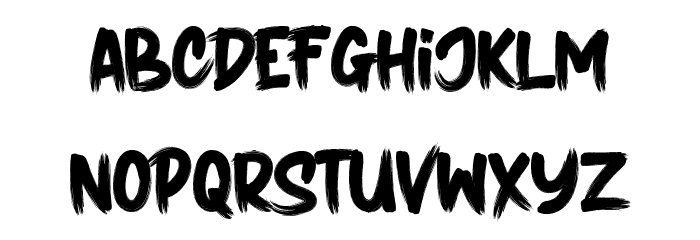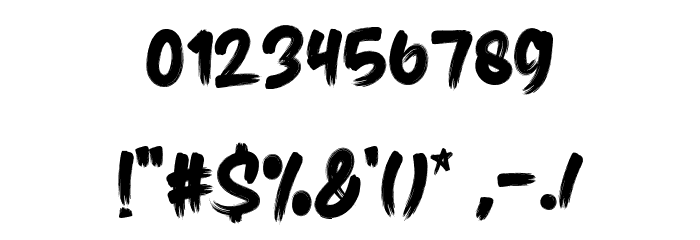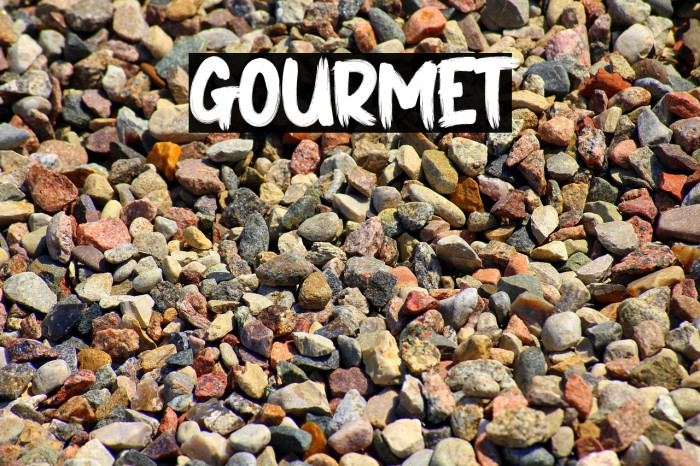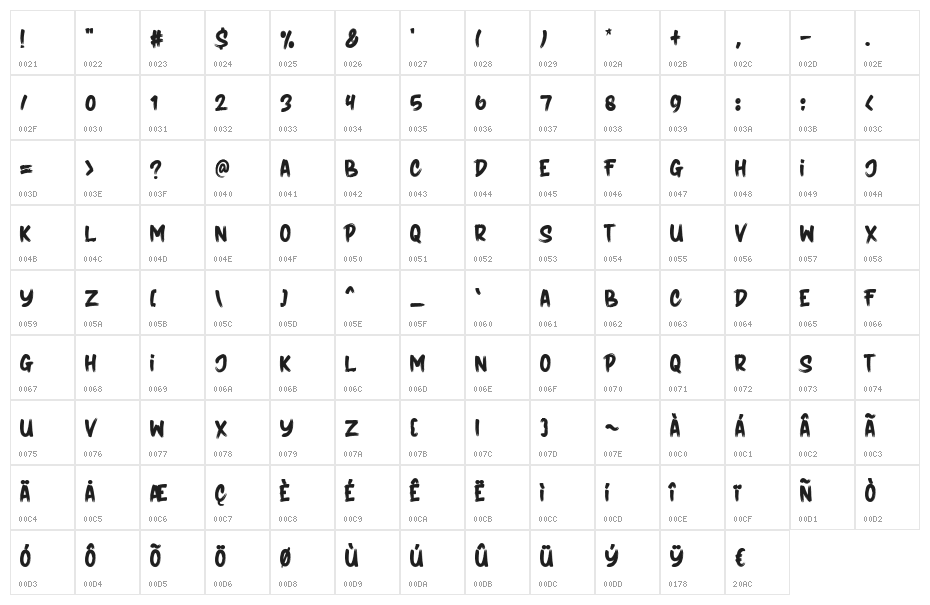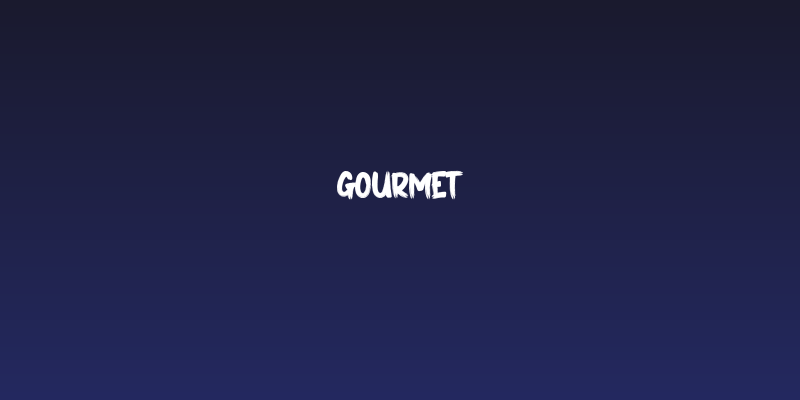
GOURMET Font
This font features a bold, brush-like style that exudes energy and dynamism. The strokes are thick and uneven, giving it a hand-painted appearance that is both artistic and expressive. The uppercase and lowercase letters maintain a consistent style, with a slightly irregular baseline that adds to its casual charm. The numbers and special characters follow the same aesthetic, ensuring a cohesive look across all text elements. This font is ideal for projects that require a bold statement, such as posters, branding, or any creative work that benefits from a touch of flair.
A bold, brush-style font with an energetic and artistic appearance.
- Proposed Projects: Ideal for posters, branding, creative projects, and any design needing a bold, artistic touch.